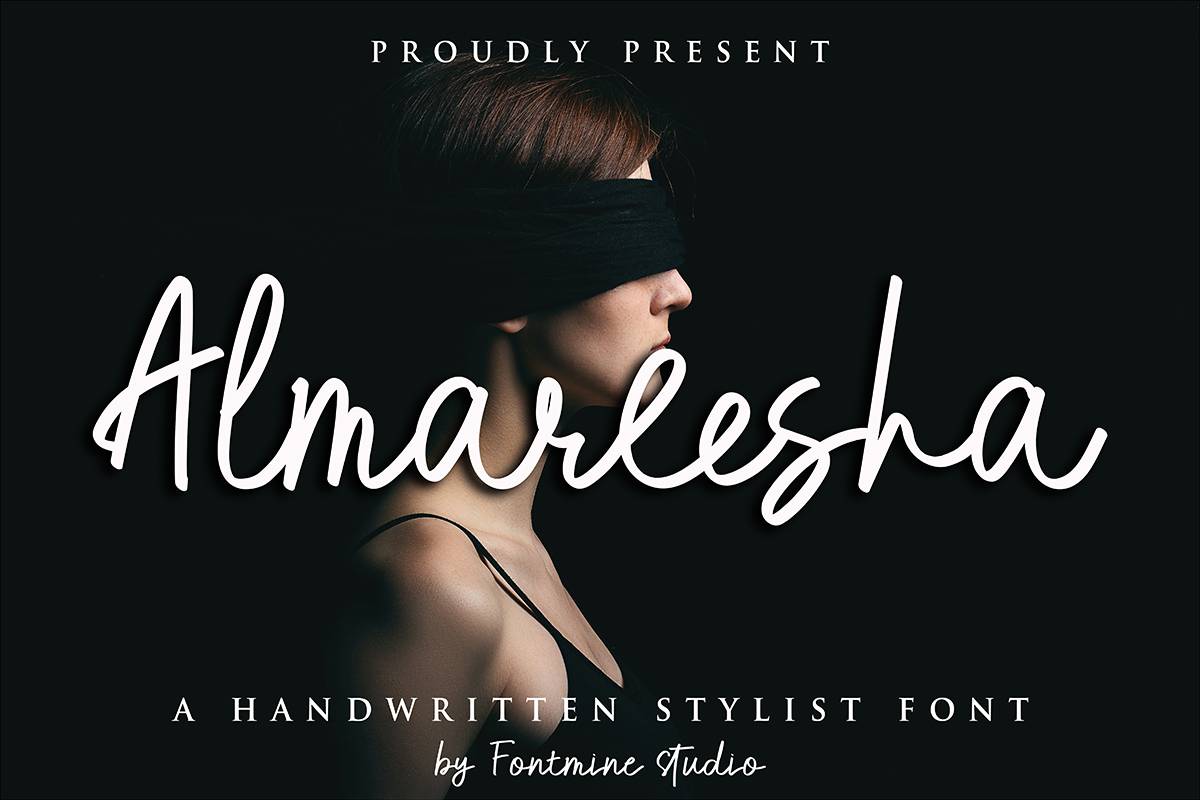
Almareesha is a casual, handwritten script font with a light and airy feel, featuring smooth, flowing strokes and moderate contrast. Its playful yet refined style makes it perfect for personal branding, invitations, social media, and creative projects that want to convey warmth and approachability. The font’s legible letterforms and natural rhythm create an inviting, friendly personality well-suited for informal but polished designs.
Almareesha Font
About Almareesha Font
| Font family | Almareesha Font |
| Designer | Ahmad Kartiwa |